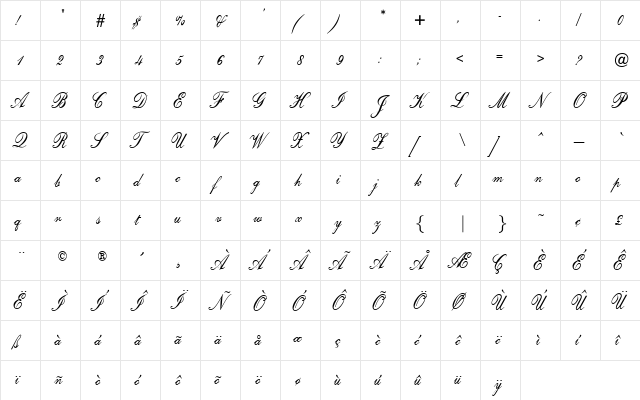
OPTIOriginal Regular
| Foundry | Copr. Castcraft Software, Inc |
Design Context for OPTIOriginal Typeface
OPTIOriginal is a composed and adaptable typeface that performs quietly and consistently across a wide range of design contexts.